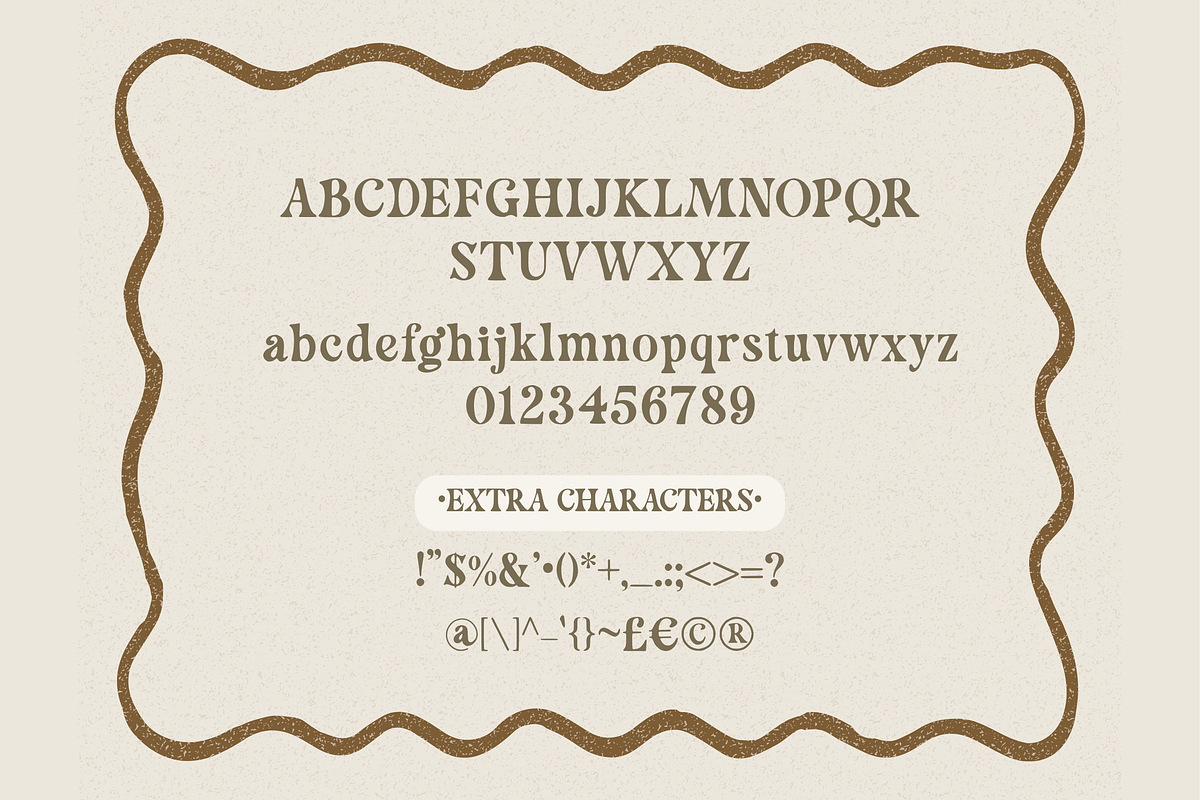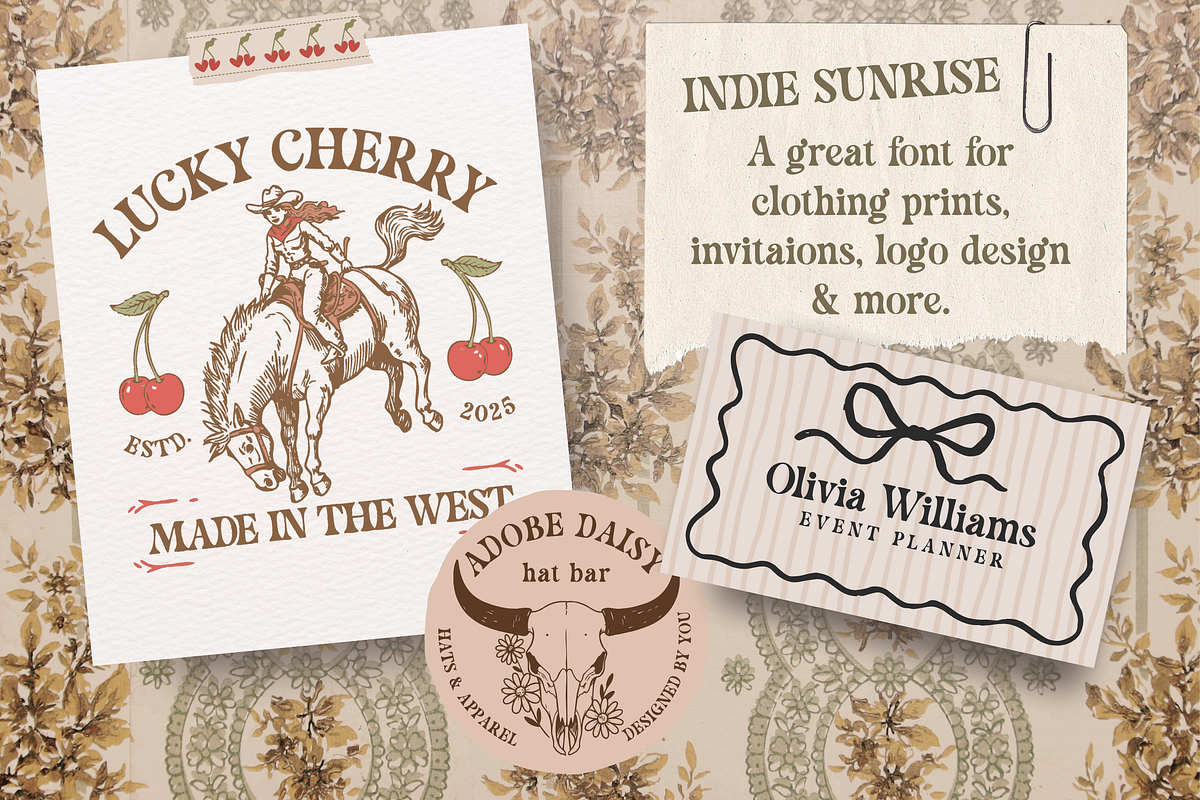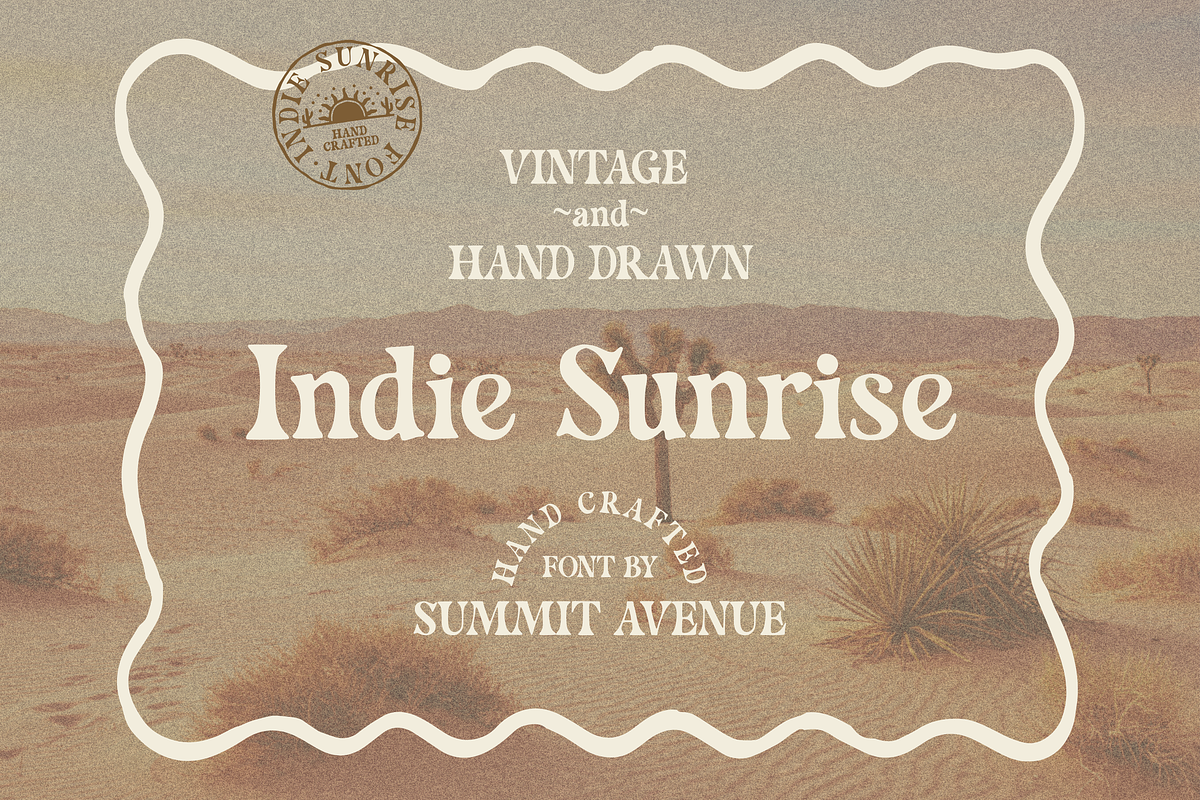
Retro Vintage Hand Drawn Font Font
🧡 Vintage Hand Drawn Font | Retro Western Style Typeface | Rustic Display Font
Bring timeless charm and character to your designs with " Indie Sunrise " -- A vintage Hand-Drawn Typeface!
This one-of-a-kind font blends retro flair, western vibes, and hand-drawn warmth into a versatile display typeface that’s perfect for logos, packaging, posters, signage, social media, and creative branding projects.
Whether you're designing for a boutique, a rustic brand, or a retro-inspired project, this font adds an authentic, handcrafted feel that stands out from the crowd.
🧡 Font Features: ✔ Vintage hand-drawn style ✔ Handwriting + Retro + just a touch of western flair ✔ Uppercase & lowercase letters ✔ Numbers & punctuation (see photos for all characters included) ✔ Easy to use — install like any standard font
🧡 Perfect For: — Logo & brand design — Invitations & stationery — Packaging & labels — Western and rustic-themed projects — Retro-inspired merch and prints
⚡ Add a bold, vintage personality to your next project with this handcrafted typeface — designed to make your words stand out!
Indie Sunrise is perfect for: retro designs, procreate, shirts, boho designs, stickers, logos, branding, greeting cards, Cricut projects, posters, magazines, social media, planner prints and more!